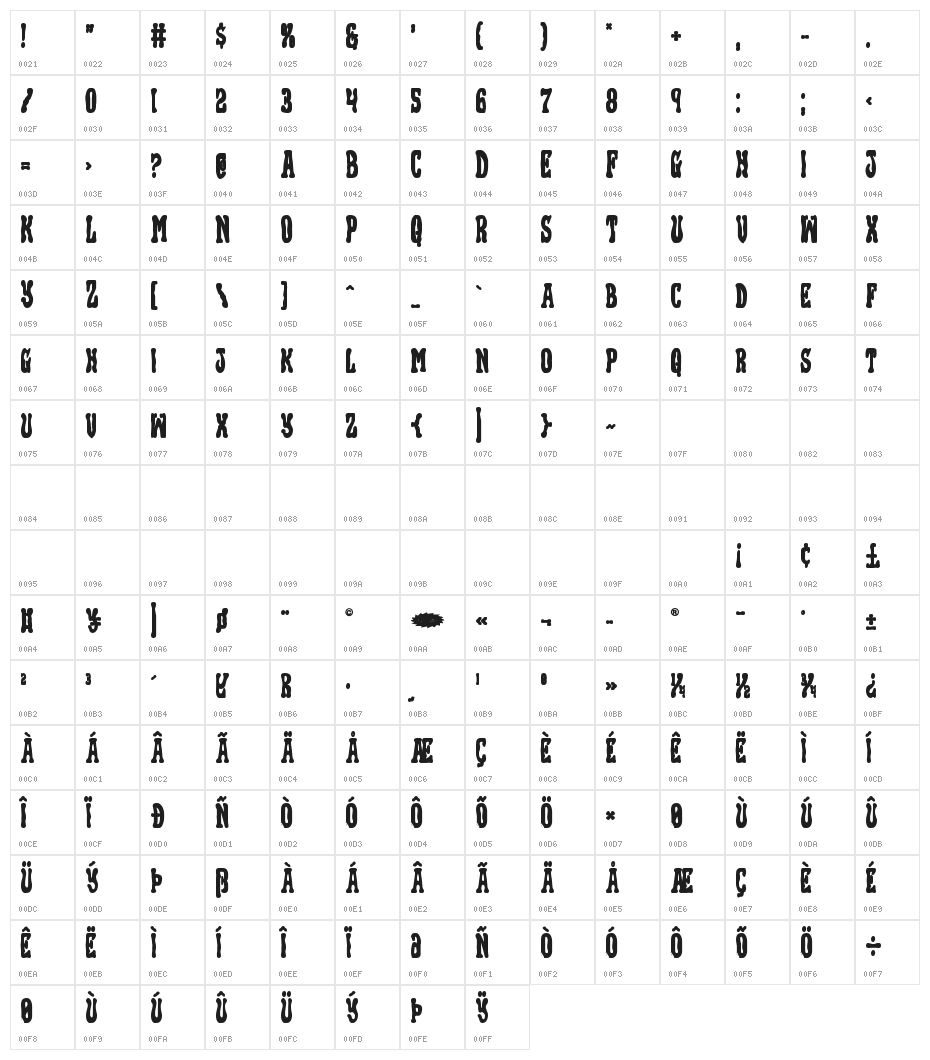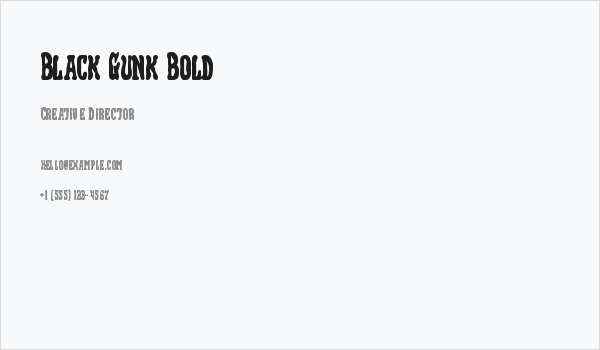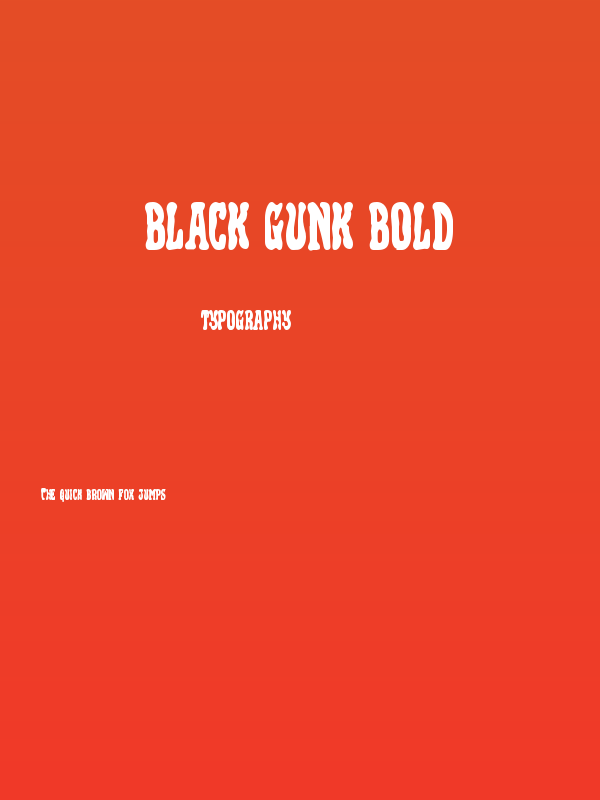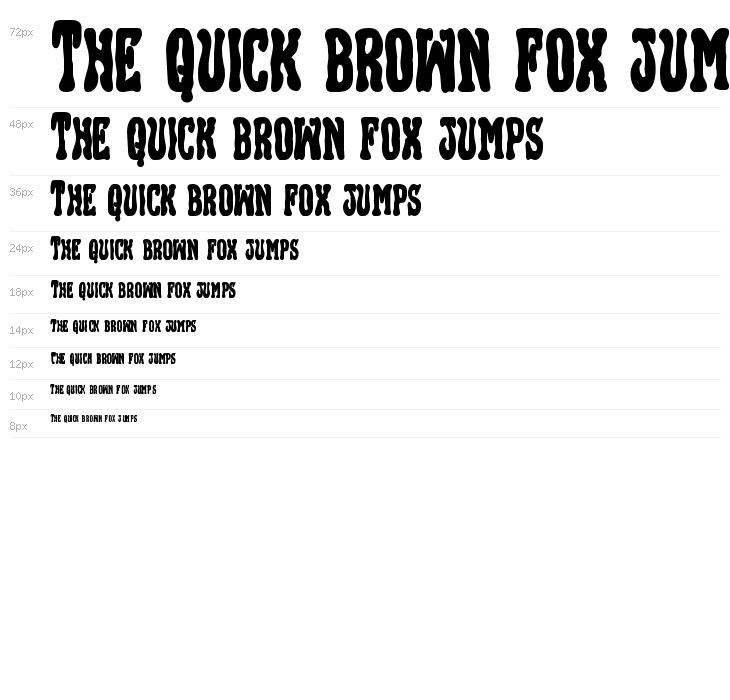
Black Gunk Bold Font
Black Gunk Bold Description
This bold and striking font features thick, rounded characters with a playful, almost cartoonish appearance. The letters are heavily weighted, giving them a strong presence on the page. The style is reminiscent of retro or vintage designs, with a touch of whimsy due to the irregular, almost blob-like shapes of the characters. The font's unique appearance makes it stand out, with each letter having a distinct personality. The numbers and special characters maintain the same bold and playful style, ensuring consistency across all text elements. This font is perfect for projects that require a fun, eye-catching typeface that doesn't take itself too seriously.
Overall StyleVintage
Proposed ProjectsIdeal for posters, children's books, comic titles, and playful branding projects.